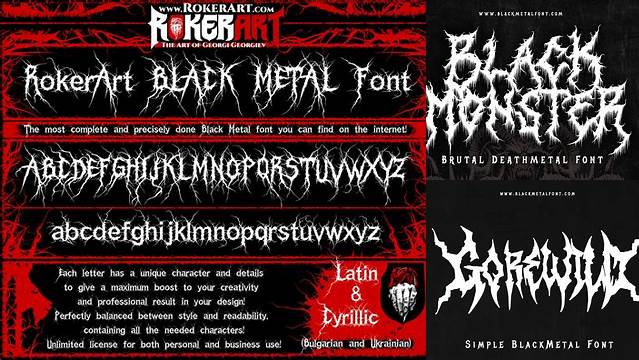
Black Metal Fonts: Find FREE Fonts For Commercial Use
Introduction: Unleashing the Power of Black Metal Fonts
Hey guys! Let's dive headfirst into the abyss of black metal fonts! These fonts aren't just letters; they're visual manifestos, dripping with the raw energy and rebellious spirit of black metal music. When we talk about black metal fonts, we're referring to a specific aesthetic characterized by sharp, angular letterforms, often embellished with spikes, inverted crosses, and other dark motifs. These fonts evoke a sense of unease, mystery, and primal power, making them ideal for projects that need to project a similar vibe. The beauty of these fonts lies in their ability to instantly communicate a mood and an attitude. Think about album covers, band logos, merchandise designs, and even promotional materials—black metal fonts have cemented their place as a crucial element in the visual language of the genre. But here’s the real kicker: finding these fonts for freemercial use. That’s right, fonts that you can use for your commercial projects without breaking the bank or running into copyright issues. In this article, we'll explore the nuances of freemercial fonts, what to look for, where to find them, and how to use them effectively to amplify your creative endeavors. So, grab your battle jackets, crank up the volume, and let’s get started!
Key Characteristics of Black Metal Fonts
So, what exactly makes a font scream "black metal?" It's more than just spiky letters, guys. The best black metal fonts embody a distinct set of characteristics that capture the essence of the genre's visual aesthetic. Sharp, Angular Letterforms: This is probably the most recognizable trait. Think harsh, jagged edges and acute angles that evoke a sense of aggression and unease. These sharp lines often create a visually striking and almost painful appearance, perfectly mirroring the intense and often chaotic nature of black metal music. Spikes and Embellishments: Many black metal fonts incorporate spikes, thorns, inverted crosses, and other dark or occult symbols directly into the letterforms. These embellishments add an extra layer of visual complexity and reinforce the genre's themes of darkness, rebellion, and anti-establishment sentiment. Inverted and Distorted Elements: Flipping letters upside down or distorting their shapes is another common technique. This creates a sense of visual dissonance and challenges conventional typography, reflecting the genre's rejection of mainstream norms. Asymmetrical Designs: Symmetry is often eschewed in favor of asymmetrical designs that feel unbalanced and unsettling. This contributes to the overall feeling of unease and chaos that is characteristic of black metal aesthetics. Limited Kerning and Spacing: Tight kerning (the space between letters) and reduced spacing can create a sense of claustrophobia and intensity. This can make the text appear dense and overwhelming, adding to the overall visual impact. Use of Black and White: While not technically a characteristic of the font itself, the use of black and white is almost synonymous with black metal fonts. The stark contrast between black letters and a white background (or vice versa) amplifies the font's visual impact and reinforces the genre's dark and minimalist aesthetic. In summary, black metal fonts are all about conveying a sense of darkness, aggression, and rebellion through their unique visual characteristics. They're not just fonts; they're visual expressions of a powerful and uncompromising musical genre.
How to Use Black Metal Fonts Effectively
Okay, you've scored some killer black metal fonts – now what? Using these fonts effectively is all about understanding their strengths and limitations and applying them strategically to create a powerful visual impact. Context is Key: Black metal fonts are inherently aggressive and attention-grabbing. Use them sparingly and in contexts where their intensity is appropriate. Overusing them can dilute their impact and make your design look cluttered and amateurish. Think album covers, band logos, event posters, and merchandise designs – these are all prime candidates for black metal fonts. Pairing with Other Fonts: Black metal fonts rarely work well on their own for large blocks of text. They're best used for headings, titles, and logos. Pair them with simpler, more readable fonts for body text to ensure that your message is clear and accessible. Sans-serif fonts like Arial, Helvetica, or Open Sans can provide a good contrast to the spiky and ornate nature of black metal fonts. Color and Contrast: As mentioned earlier, black and white is a classic combination for black metal fonts. The stark contrast amplifies their visual impact and creates a sense of drama. However, don't be afraid to experiment with other color combinations. Dark colors like black, gray, and deep reds can enhance the font's dark and ominous feel. Light colors like white, silver, or even neon shades can create a striking contrast and make the font stand out. Size and Scale: Pay attention to the size and scale of your black metal fonts. Larger sizes will emphasize their intricate details and make them more impactful. Smaller sizes can be used for subtle accents or to create a sense of texture. Experiment with different sizes to see what works best for your design. Kerning and Tracking: Adjusting the kerning (the space between letters) and tracking (the overall spacing of the text) can significantly affect the readability and visual appeal of your black metal fonts. Tight kerning can create a sense of intensity and claustrophobia, while looser kerning can make the font feel more open and airy. Experimentation is Encouraged: Don't be afraid to experiment with different techniques and approaches. Try layering fonts, adding textures, or distorting the letters to create unique and eye-catching effects. The key is to find a balance between visual impact and readability. By following these tips, you can harness the power of black metal fonts and use them to create designs that are both visually striking and effective.
Conclusion: Embrace the Darkness (Responsibly)
So, there you have it, guys! A comprehensive guide to the world of black metal fonts and their freemercial use. Remember, these fonts are more than just decorative elements; they're powerful tools that can evoke a sense of darkness, rebellion, and primal energy. By understanding their characteristics, knowing where to find them, and using them effectively, you can elevate your designs and create visuals that truly capture the spirit of black metal. Always double-check the license agreement before using any font in your commercial projects to avoid legal issues. And most importantly, have fun and let your creativity run wild! Now go forth and unleash the darkness… responsibly, of course!